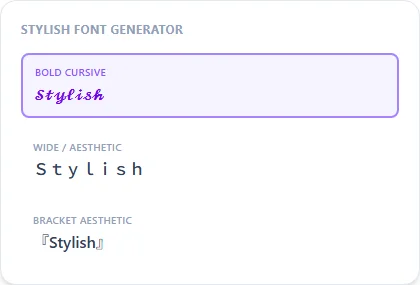
"Stylish" leans elegant rather than loud: flowing script and evenly wide-spaced letters rather than anything blocky or heavy.
Bold Cursive gives an elegant script base; Wide / Aesthetic and Bracket Aesthetic add the wider, more curated spacing that reads as fashion-forward.
Stylish Text Generator style examples: Bold Cursive, Wide / Aesthetic, Bracket Aesthetic, rendered on the word "Stylish"
Stylish sits between elegant script and modern aesthetic spacing
This page pairs two different traditions: flowing cursive script (the same family as the calligraphy and cursive pages) and the wide, evenly-spaced fullwidth look popular in fashion and lifestyle content. Neither alone fully captures 'stylish.' The combination of a soft script base with clean wide spacing is what reads as fashion-forward rather than purely decorative.
Best for fashion, beauty, and lifestyle bios
Bold Cursive paired with Bracket Aesthetic is the most common combination for this context — elegant enough for a beauty or fashion bio without tipping into the heavier, more occasion-specific look of the pretty font generator page.
What's the difference between stylish and elegant here?
There's no hard technical line. This page pairs script styles with wider aesthetic spacing, which reads as more "stylish/fashion" than the plainer script-only pages.
Which style is most stylish for a fashion or beauty bio?
Bold Cursive paired with Bracket Aesthetic reads well for that context.
Is Sans Bold a good stylish option too?
Yes, for a cleaner and more modern take — it drops the script entirely for a minimalist, fashion-editorial feel instead.
Does this page overlap with the aesthetic font generator?
Yes, both use Wide / Aesthetic as a base — this page frames it toward fashion/beauty specifically, paired with script rather than symbol-heavy decoration.